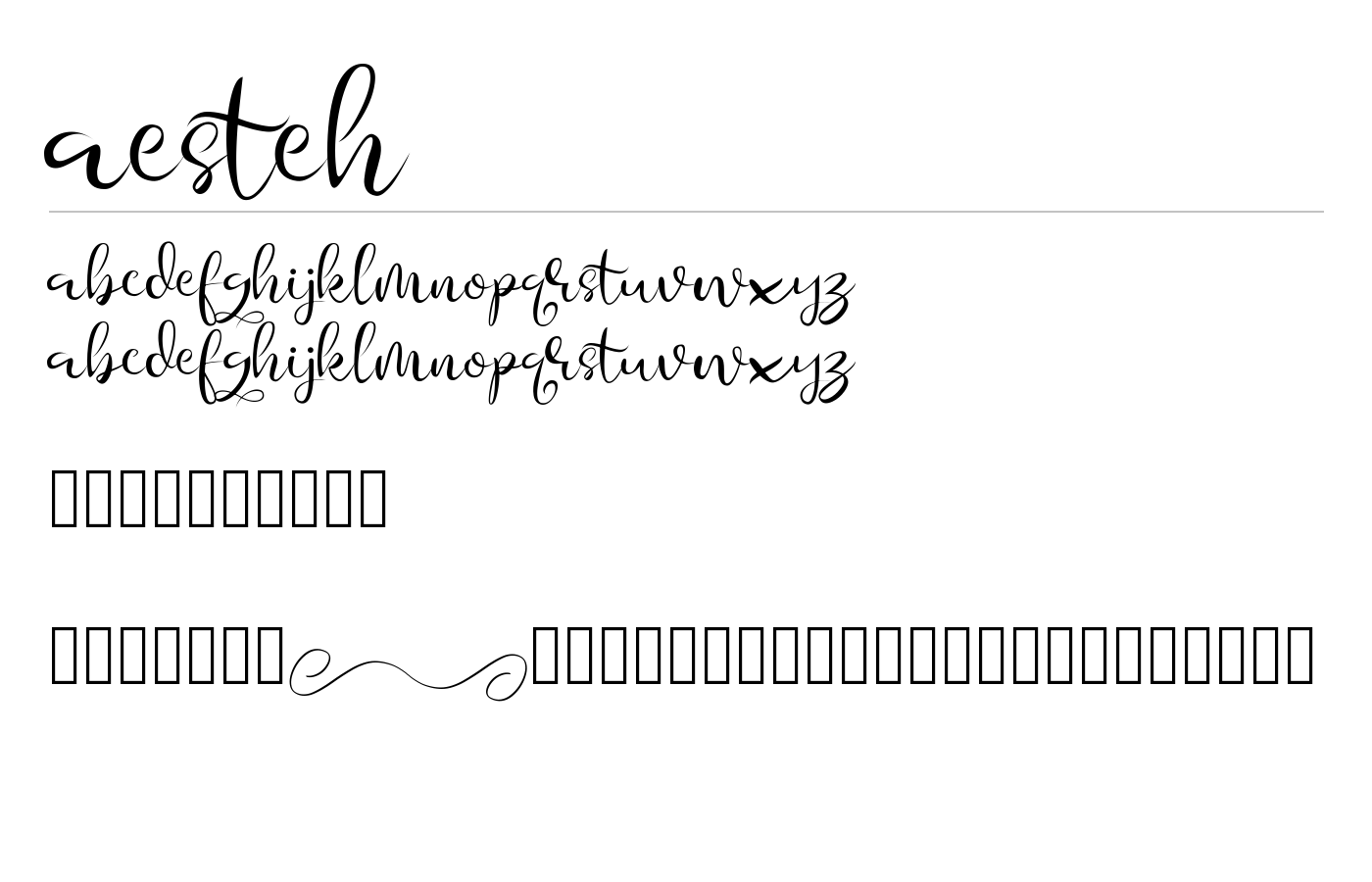
Aesteh Font is a graceful script typeface with smooth, flowing strokes and elegant swashes that give it a refined, handwritten feel. Its light weight and airy forms make it perfect for adding a touch of sophistication and charm to wedding invitations, branding, and feminine design projects. This font works beautifully in headlines and decorative text where a personal, artistic touch is desired.
Aesteh Font